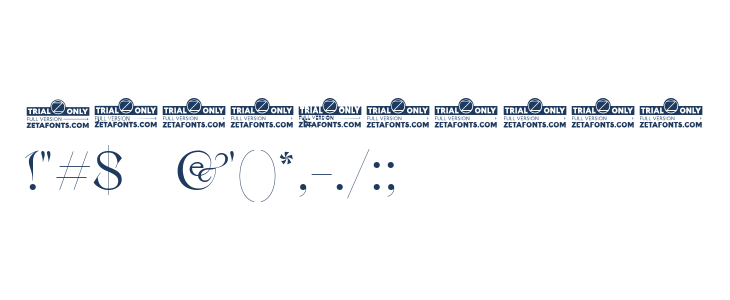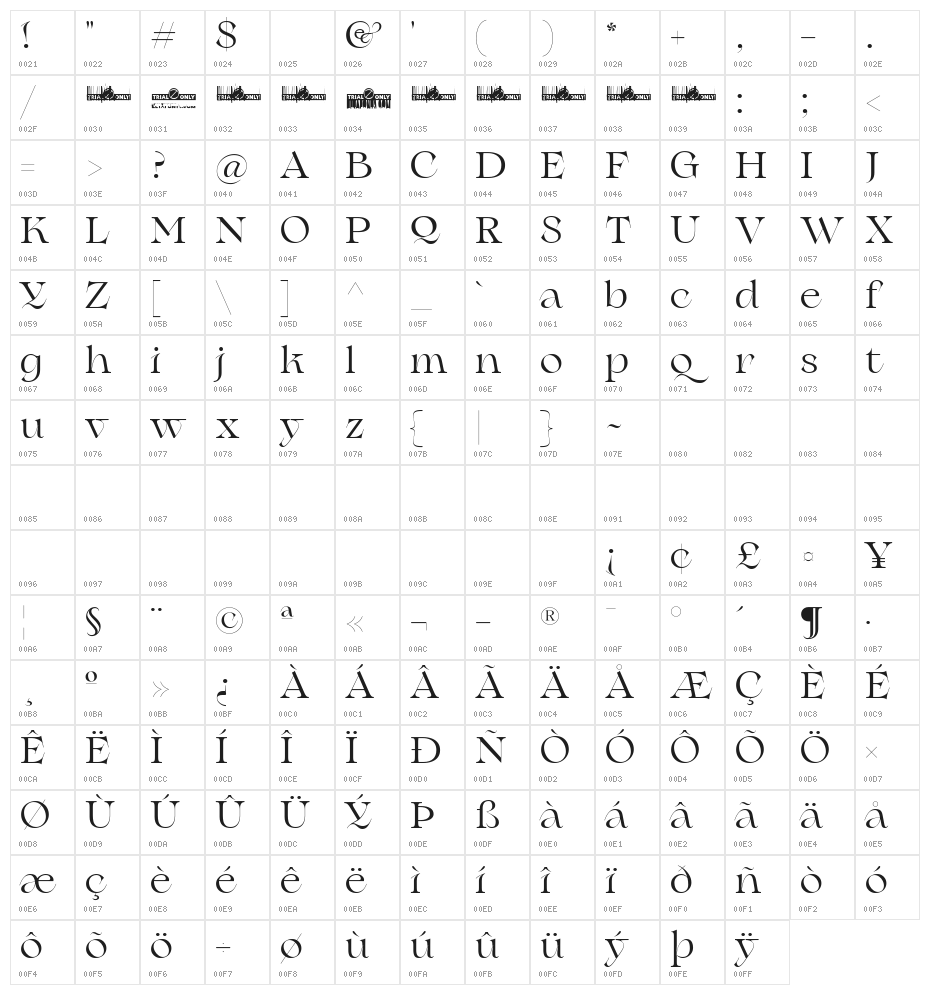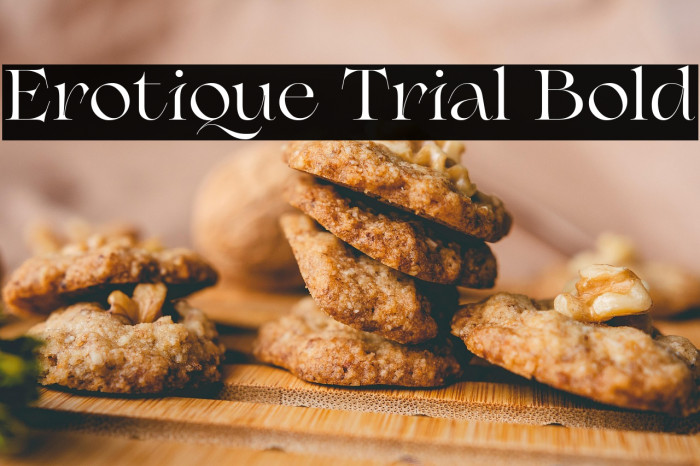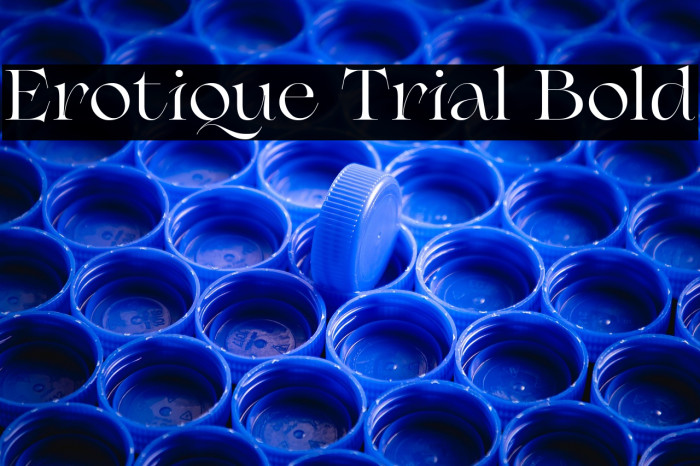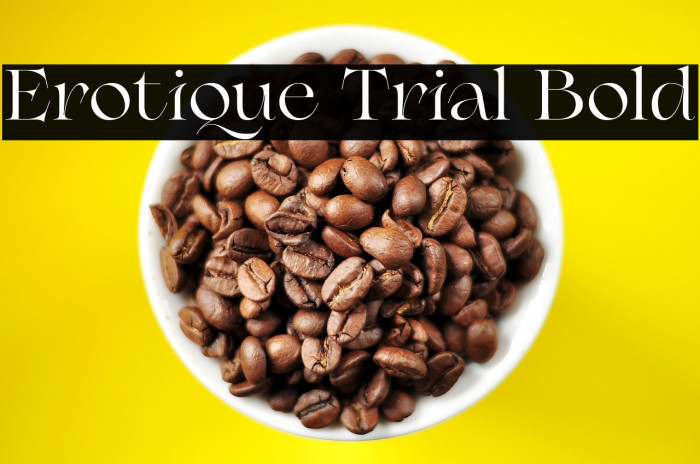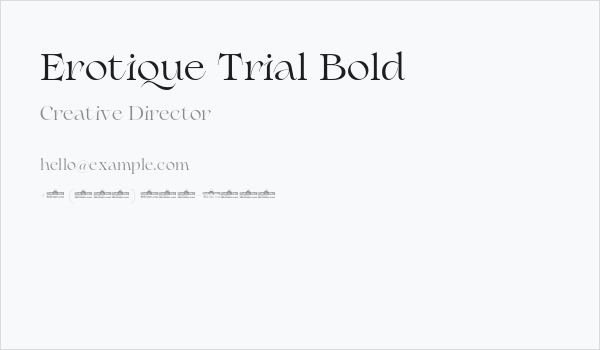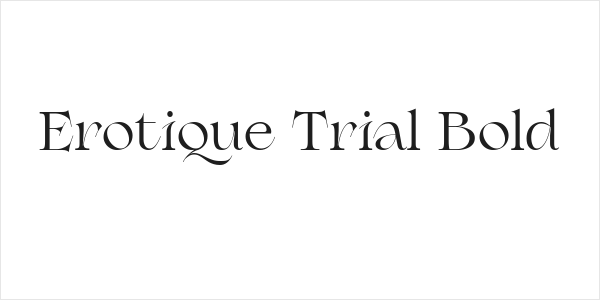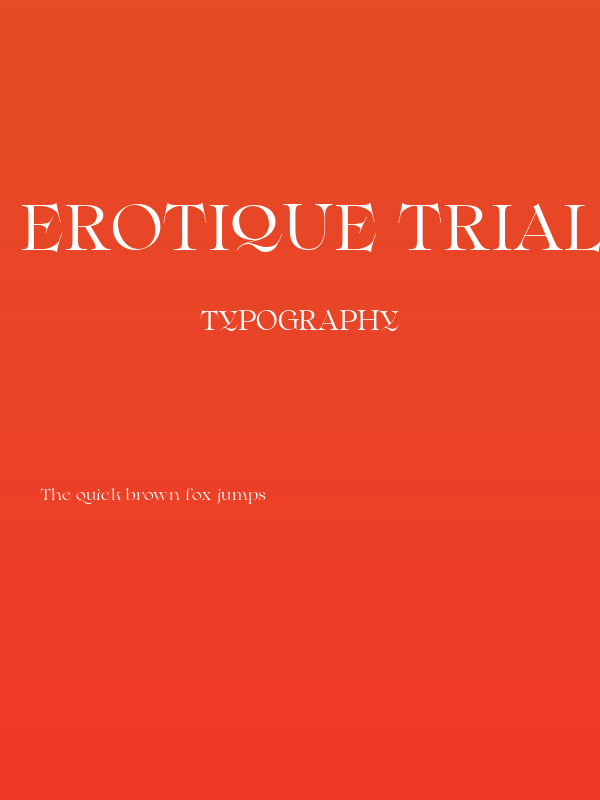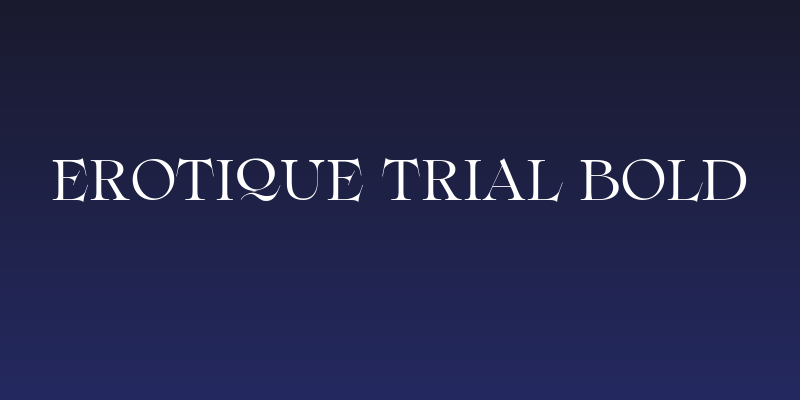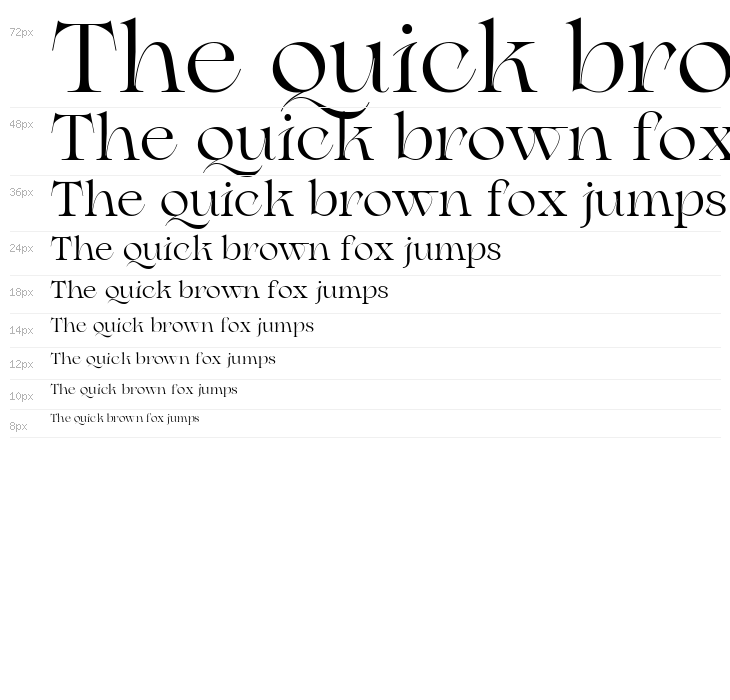
Erotique Trial Bold Font
Erotique Trial Bold Description
This font exudes a sense of elegance and sophistication with its high contrast and sharp serifs. The uppercase letters are characterized by their dramatic flares and pointed terminals, giving them a distinctive and stylish appearance. The lowercase letters maintain a consistent style, with smooth curves and a refined structure. The numerals are equally elegant, with a balanced design that complements the overall aesthetic. The special characters, including punctuation and symbols, are crafted with the same attention to detail, ensuring a cohesive look across all text elements.